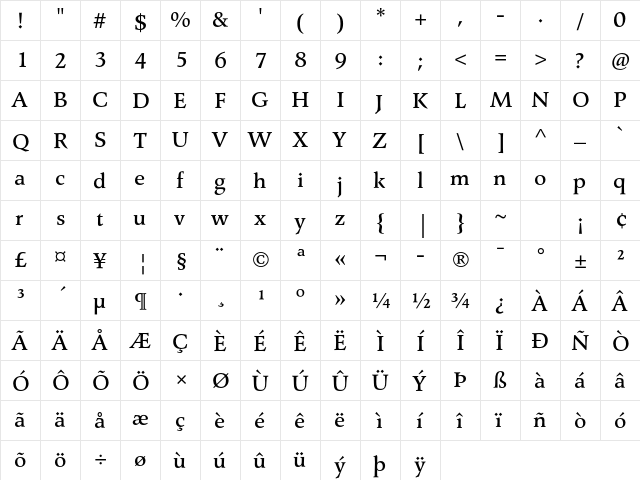
Agfa Wile Roman Std Medium
Design Context for Agfa Wile Roman Std Typeface
Agfa Wile Roman Std is a composed and adaptable typeface that performs quietly and consistently across a wide range of design contexts.